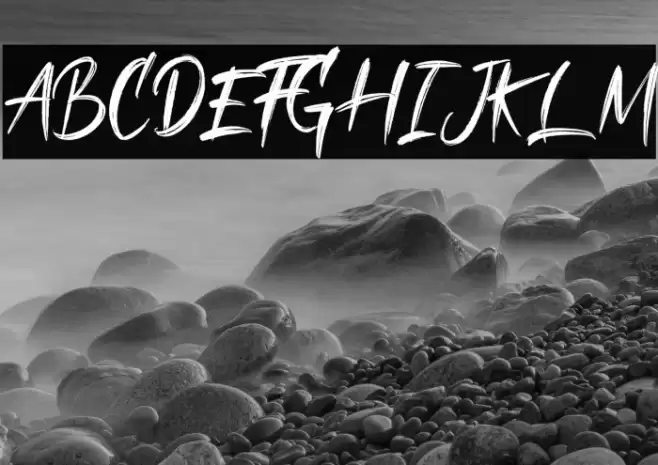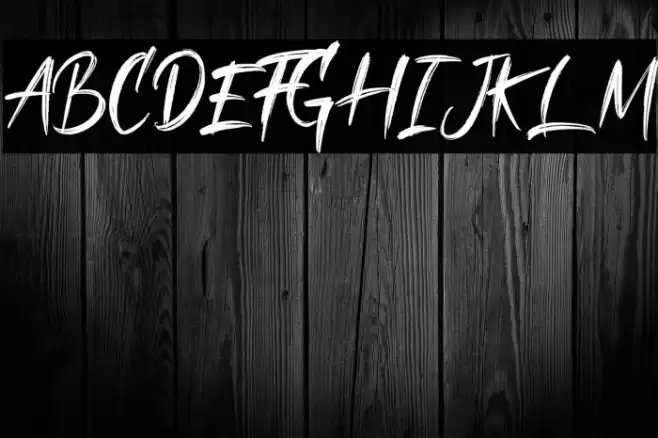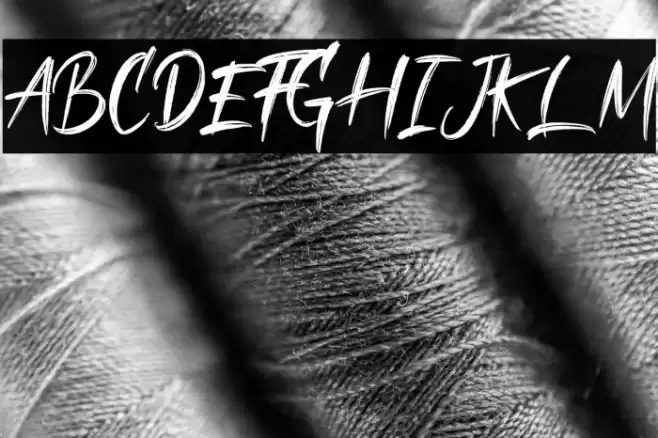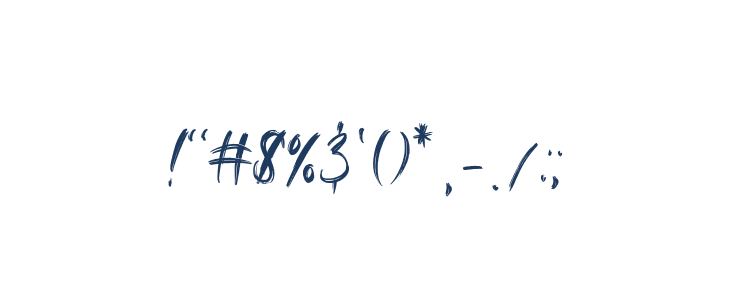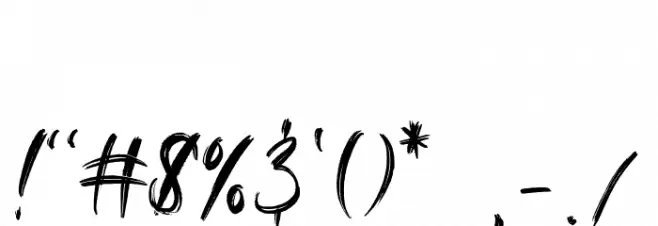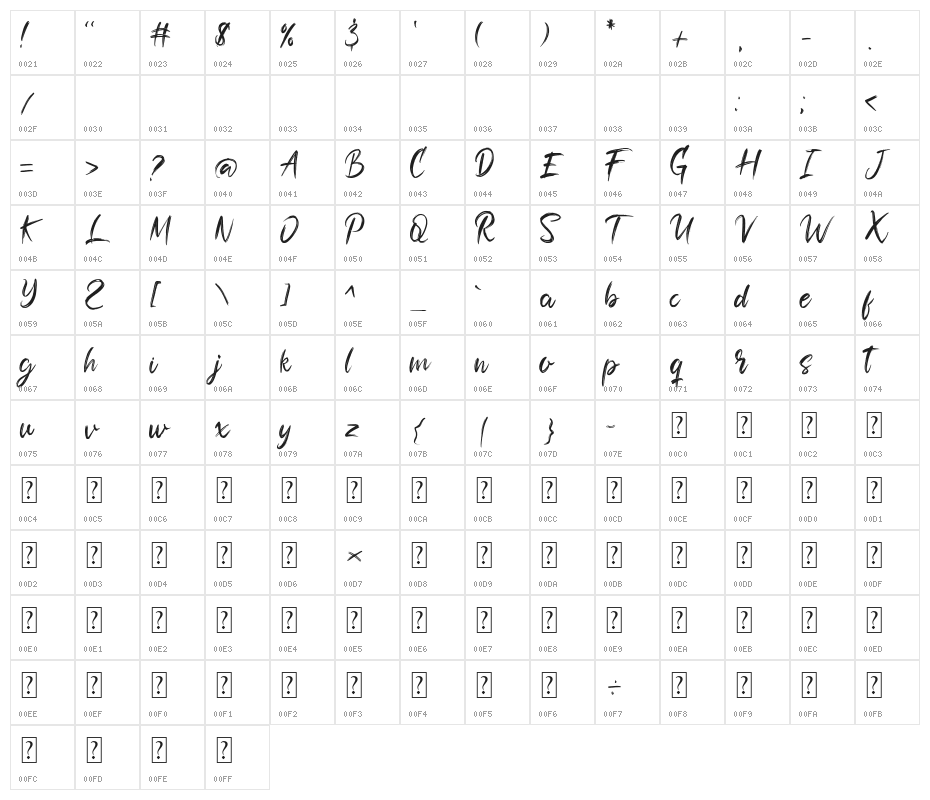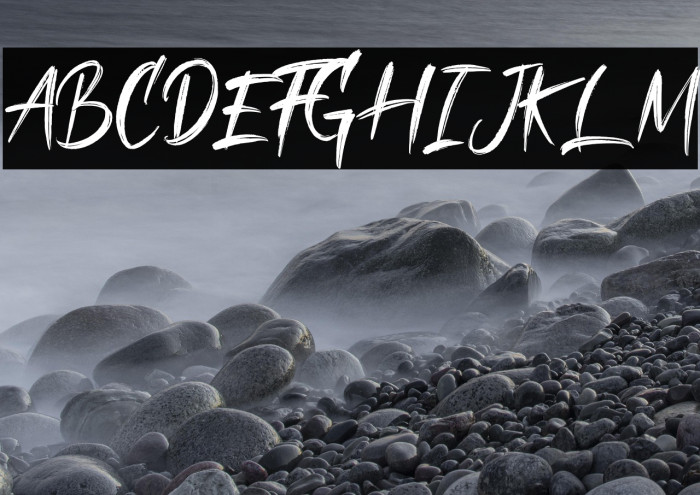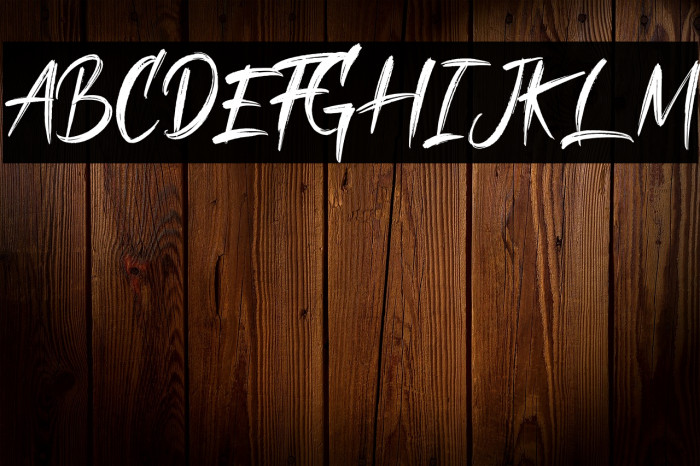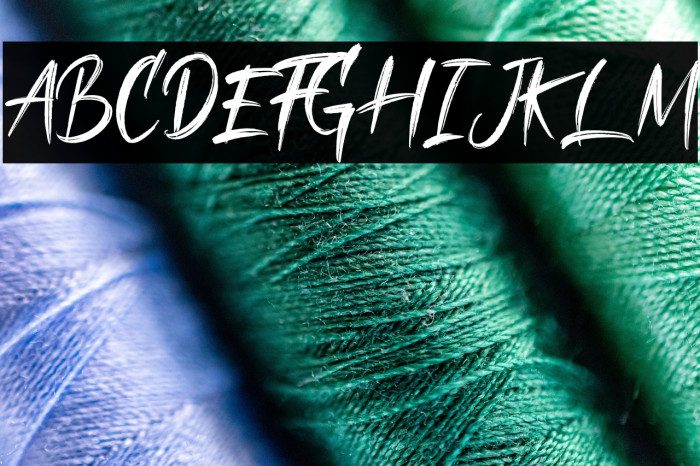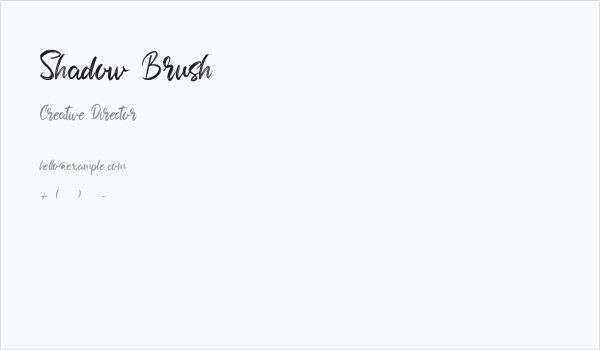
Shadow Brush Font
Shadow Brush Description
This font exudes a dynamic and energetic style, characterized by its brush-like strokes that give it a hand-painted appearance. The letters are fluid and expressive, with varying thickness that adds a sense of movement and depth. The uppercase and lowercase letters maintain a consistent flow, while the numbers and special characters complement the overall aesthetic with their bold and artistic flair. The font's unique style makes it stand out, offering a creative and informal touch to any design.
A dynamic, brush-style font with expressive, hand-painted strokes from Uncategorized fonts.
- Proposed Projects: Ideal for creative projects such as posters, invitations, branding, and artistic designs where a bold, personal touch is desired.